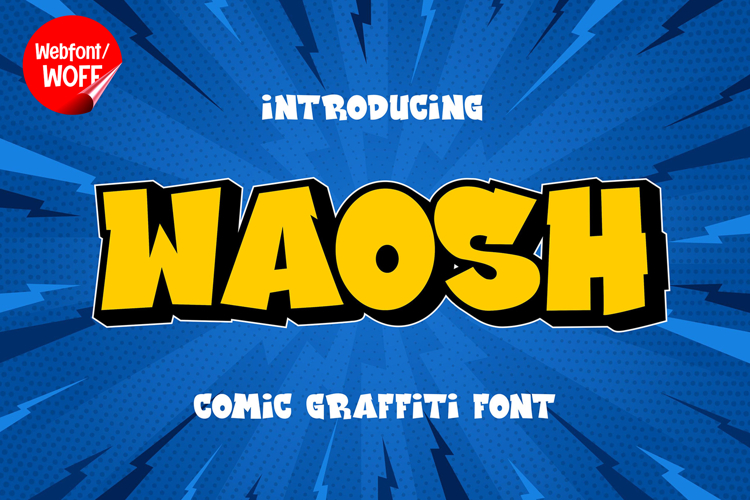
Waosh | 3D Comic Display Webfont for Fun Websites
Waosh is a 3D comic display webfont designed to bring a fun, bold, and energetic style into modern website design. Inspired by comic book lettering and playful visual storytelling, this font features thick shapes combined with a dimensional 3D effect that creates a lively and eye-catching appearance. It is an ideal choice for projects that need a vibrant and expressive typographic style.
Waosh includes a complete set of uppercase characters designed with bold comic-style forms. The letters feature rounded edges and exaggerated proportions, enhanced by a 3D effect that adds depth and dimension. These shapes are perfect for headlines, banners, hero sections, and featured content where attention-grabbing typography is essential. The playful design helps create a strong visual hierarchy and adds excitement to any layout.
In addition to letters, the font includes numbers and punctuation, making it versatile for various website elements. It works well for promotional text, event announcements, pricing displays, and call-to-action sections. Each character maintains a consistent comic-inspired style, ensuring a cohesive and engaging design throughout the website.
With multilingual support, Waosh includes a wide range of accented characters, making it suitable for international websites and global audiences. This allows content to be displayed clearly across different languages while preserving the fun and bold comic aesthetic.
The 3D comic display style of Waosh makes it especially suitable for entertainment websites, gaming platforms, kids-themed designs, creative portfolios, and promotional landing pages. Its vibrant and expressive look adds personality and energy, helping websites stand out in visually competitive spaces. The comic-inspired design also enhances storytelling and visual engagement.
Despite its bold and decorative appearance, Waosh is designed with readability in mind. The spacing and structure of each character are carefully balanced to ensure clarity, particularly in display sizes. This makes it effective for impactful headings and short content elements where both style and usability are important.
Waosh is a webfont that combines comic-inspired design with modern digital functionality. Its bold shapes, 3D depth, and playful character create a distinctive typographic style that enhances website design. For projects that require a fun, energetic, and visually engaging font, Waosh offers a strong and creative solution.